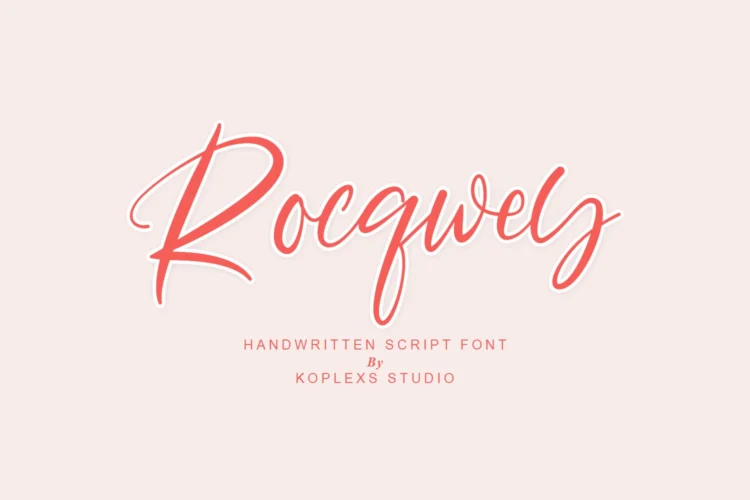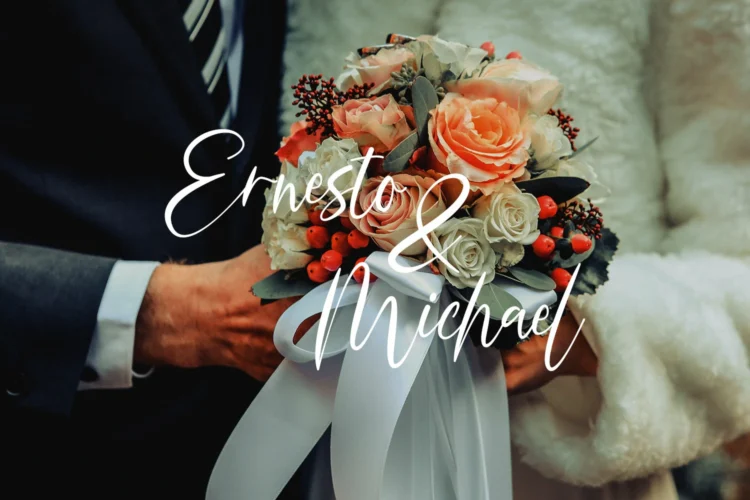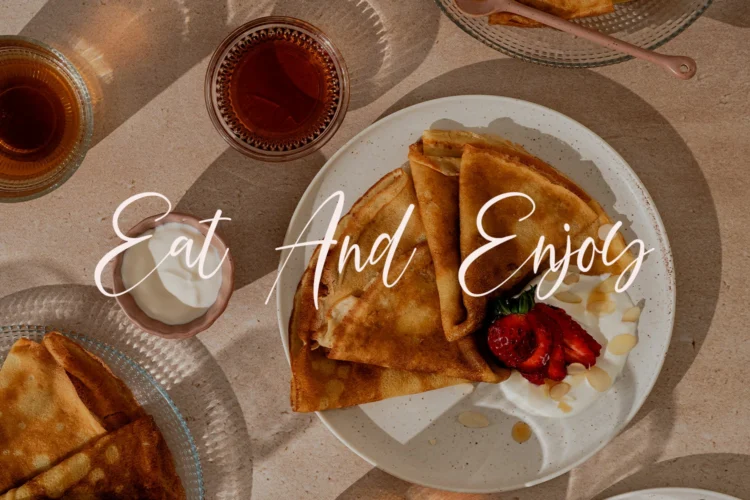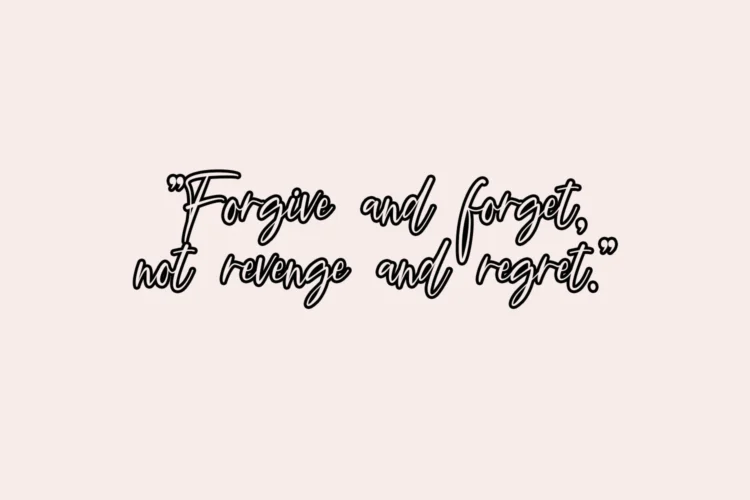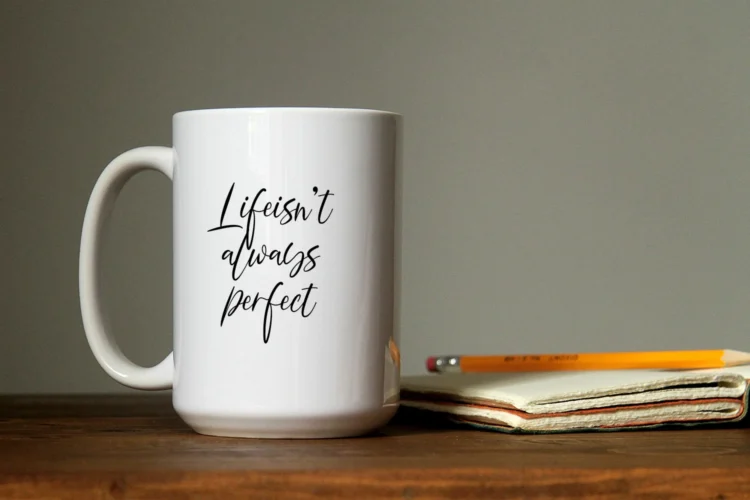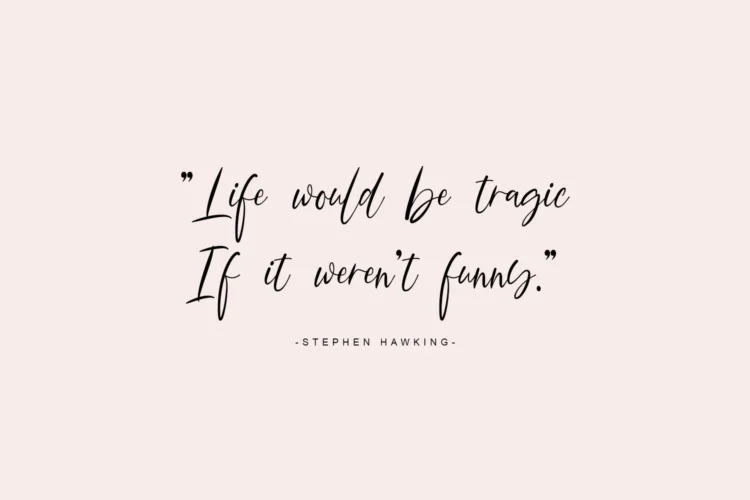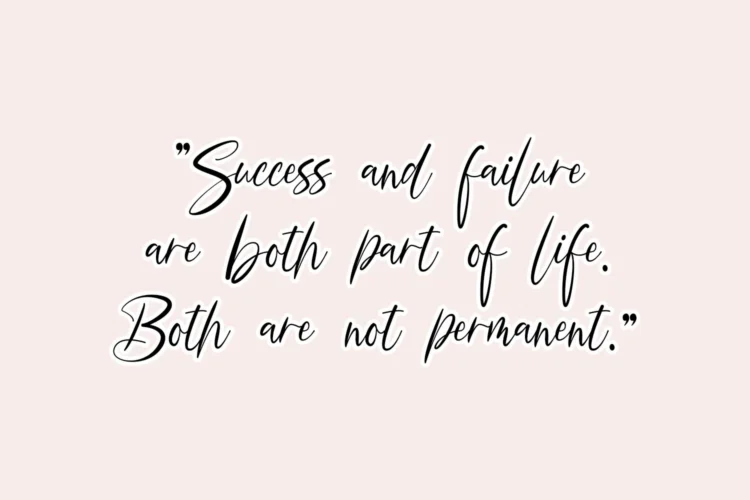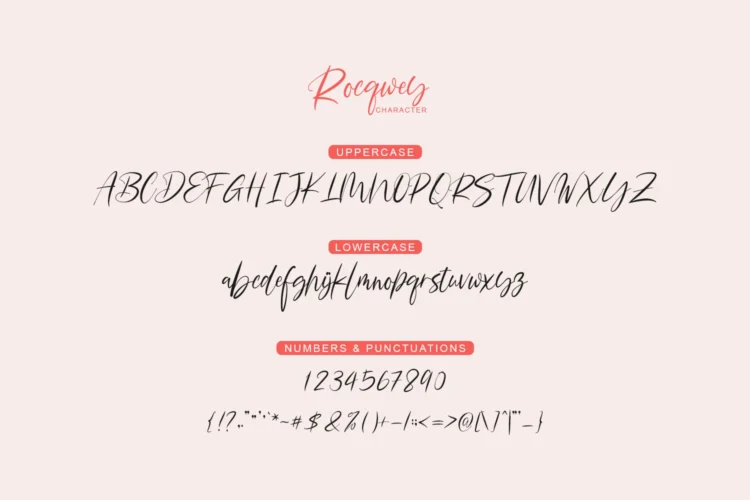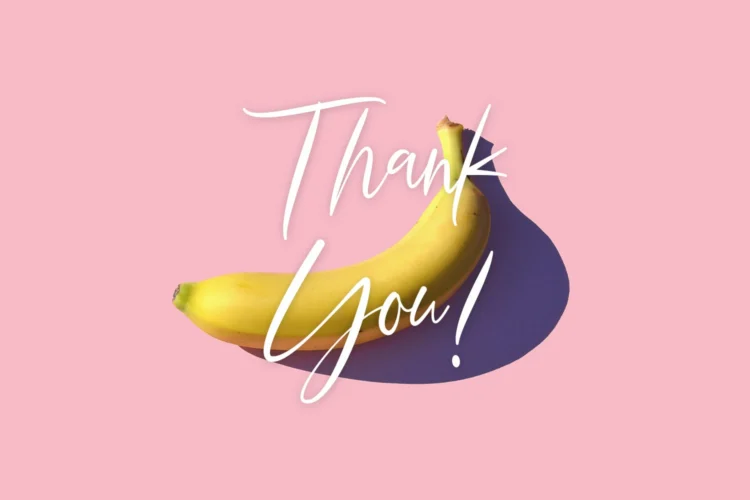
Rocqwey Font – Modern Script Font for Elegant Branding, Wedding & Luxury Design
Bring a touch of elegance and authenticity to your designs with Rocqwey Font, a stylish Handwritten Font crafted with a smooth natural flow and modern signature style. Designed to capture the beauty of real handwriting, Rocqwey delivers a soft, expressive, and sophisticated look that instantly enhances any creative project.
This artistic script font combines graceful curves with clean readability, making it suitable for both personal and professional use. From luxury branding to romantic wedding stationery, Rocqwey creates a timeless visual impression that feels refined yet approachable.
Rocqwey is an excellent choice for designers looking for a versatile wedding font that feels modern, elegant, and emotional at the same time. The flowing handwritten strokes create beautiful typography for invitations, save-the-date cards, and bridal branding.
As a premium branding font, Rocqwey helps businesses create a strong and memorable visual identity. Its stylish handwritten appearance works perfectly for logos, packaging, labels, and marketing materials that require a luxurious and aesthetic feel.
The font also works beautifully as a cosmetic font for skincare, beauty, fashion, and feminine product branding. Its delicate handwritten details give products a soft, classy, and modern appearance that stands out effortlessly.
Inspired by contemporary calligraphy styles, Rocqwey is a sophisticated Calligraphy Font that blends creativity with simplicity. Unlike ordinary modern fonts, Rocqwey adds personality and emotion while maintaining a clean and professional design structure.
Whether you’re creating a signature-style logo font, elegant social media graphics, or stylish packaging, Rocqwey delivers a polished and premium look. Its balanced handwritten character makes it a truly versatile elegant font and luxury font for all kinds of creative industries.
Rocqwey Font Perfect for :
- Wedding invitations & bridal projects
- Logo and luxury branding
- Cosmetic & skincare packaging
- Fashion labels & boutique designs
- Instagram posts & aesthetic content
- Café branding & menu typography
- Product packaging & handmade crafts
- Greeting cards & stationery
- Quote designs & wall art
- Editorial layouts & magazine titles
Rocqwey Font is designed for creators who want typography that feels stylish, warm, and luxurious without looking overly formal. Every letter is crafted to create beautiful visual harmony in your designs.